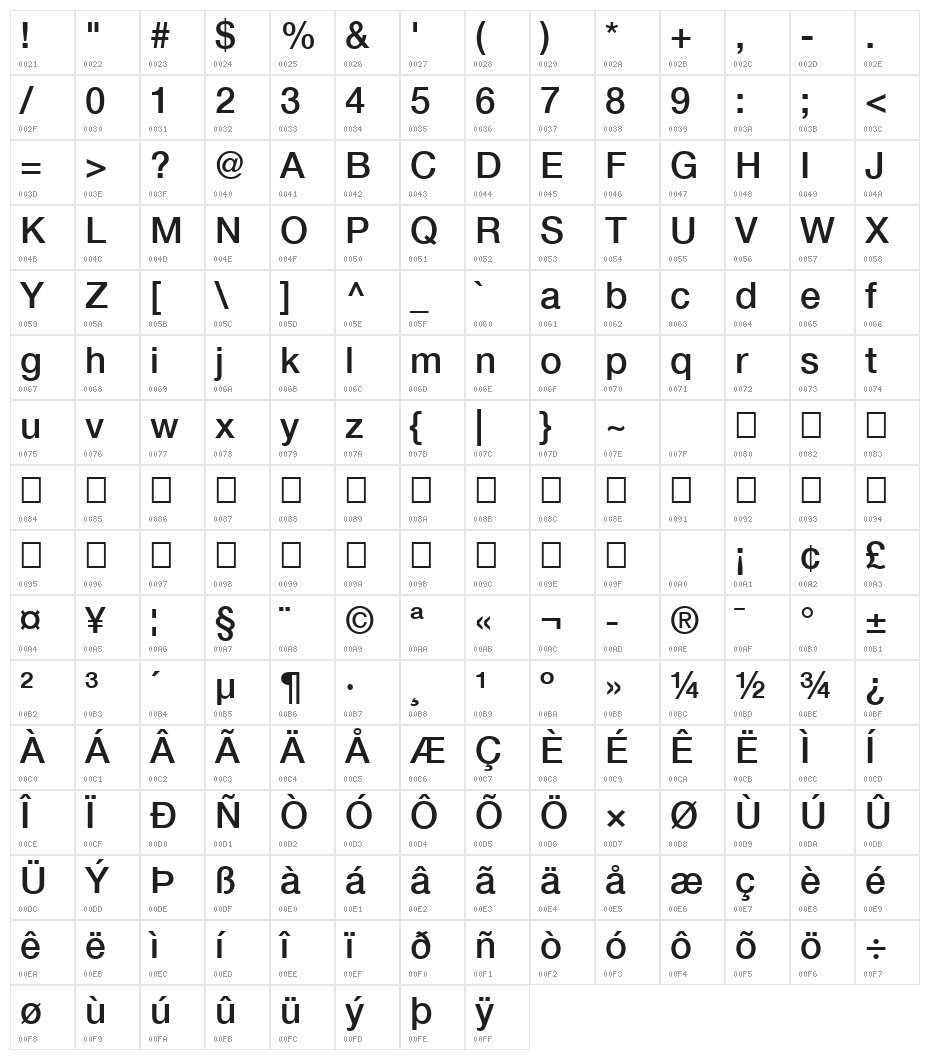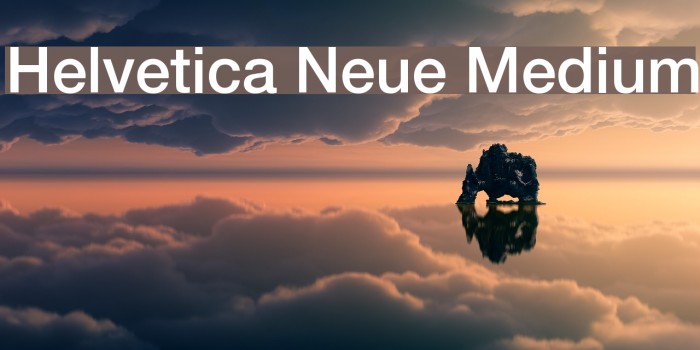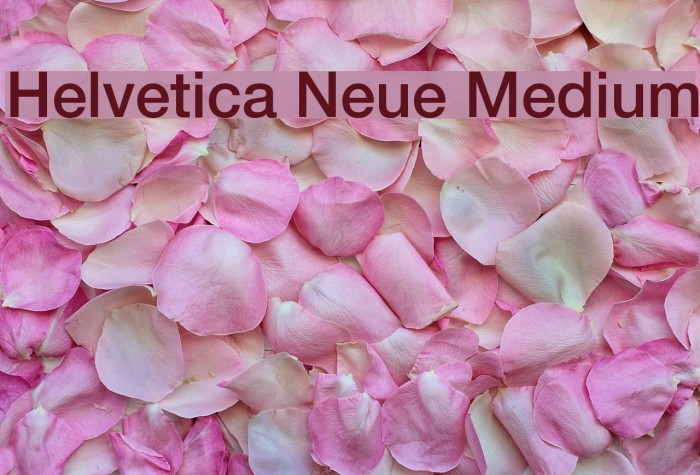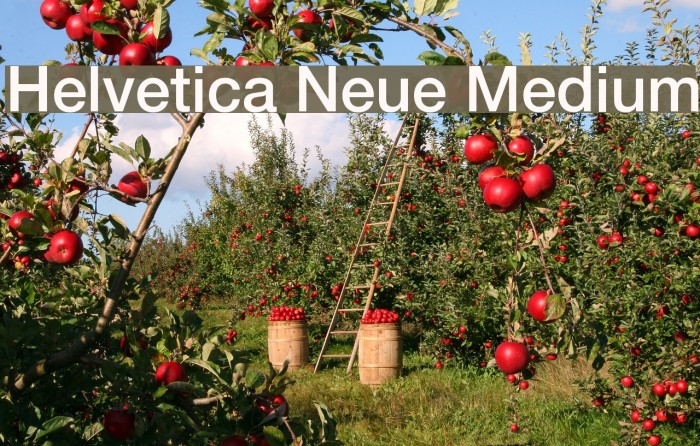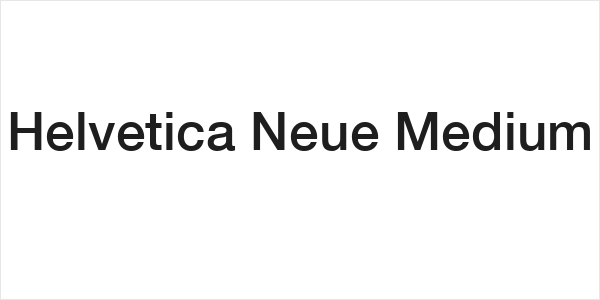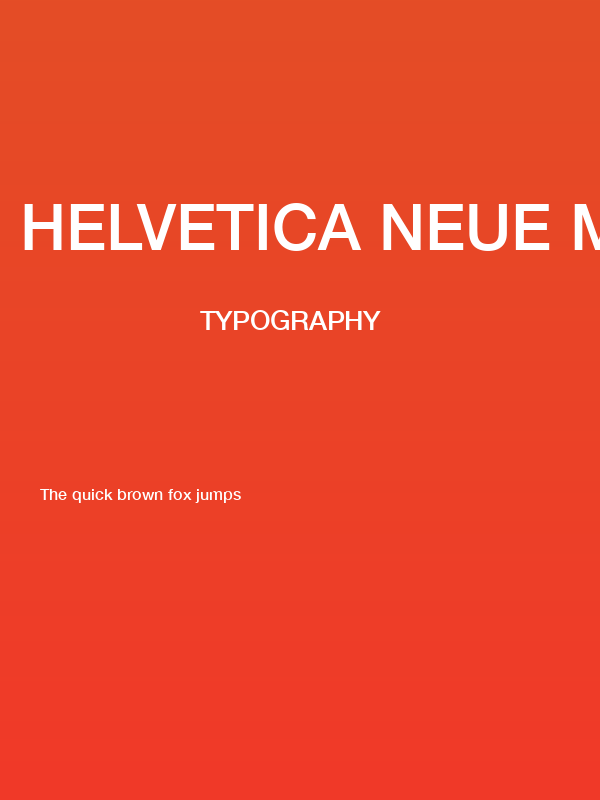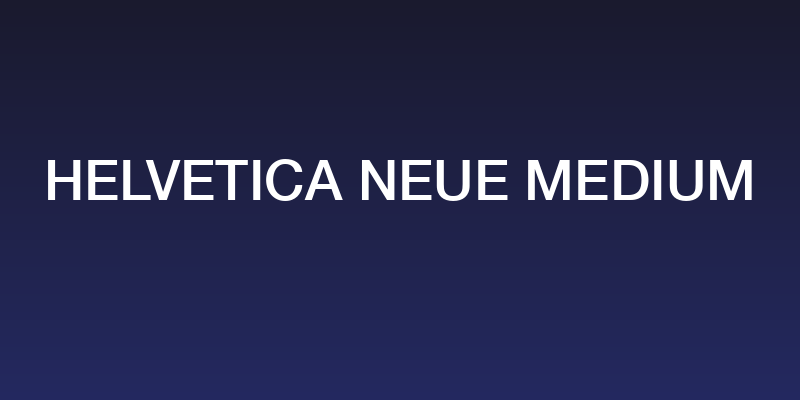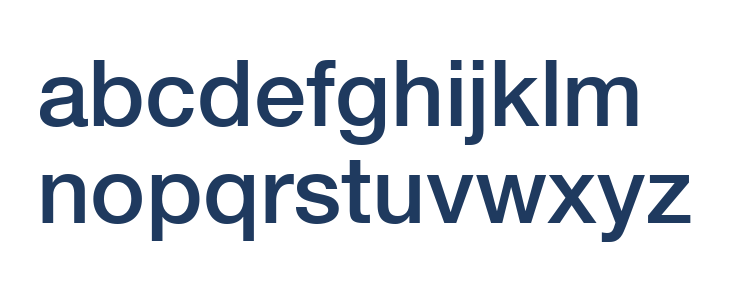
Helvetica Neue Medium Font
Helvetica Neue Medium Description
This font is a clean and modern sans-serif typeface known for its clarity and legibility. It features uniform stroke widths and a balanced design, making it highly versatile for various applications. The characters are well-proportioned with a consistent baseline, and the overall appearance is sleek and professional. The font's simplicity and neutrality allow it to blend seamlessly into different design contexts, from corporate branding to digital interfaces. Its geometric shapes and open counters contribute to its readability, while the lack of serifs gives it a contemporary feel.